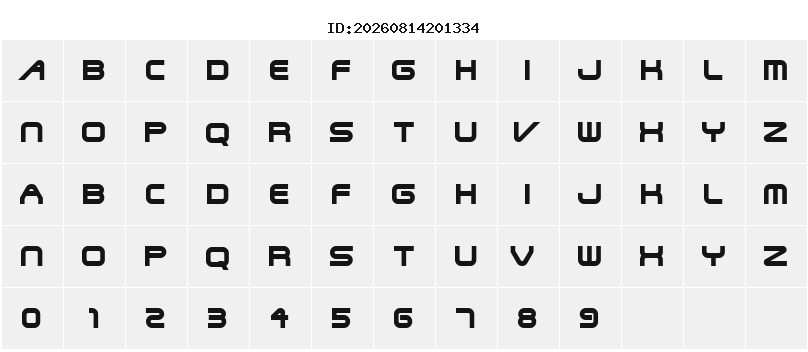
Steel Preview
• Font Name: Steel
• Font ID: Altsys Metamorphosis:Steel Regular
• Full Font Name: Steel Regular
• Version: Altsys Metamorphosis:4/16/92
• PostScript Name: Steel Regular
About Steel.ttf
Steel.ttf is a modern, elegant sans-serif font designed for ultimate readability and visual harmony. Perfect for branding, headlines, web design, and print materials.